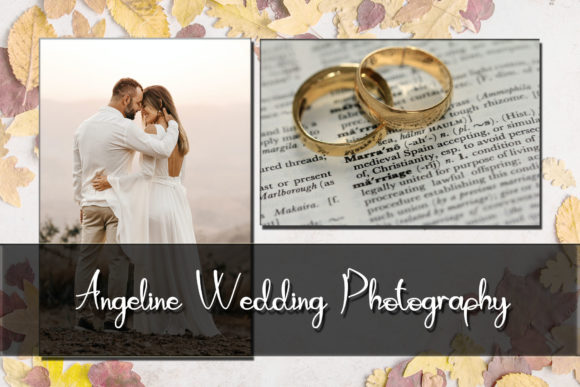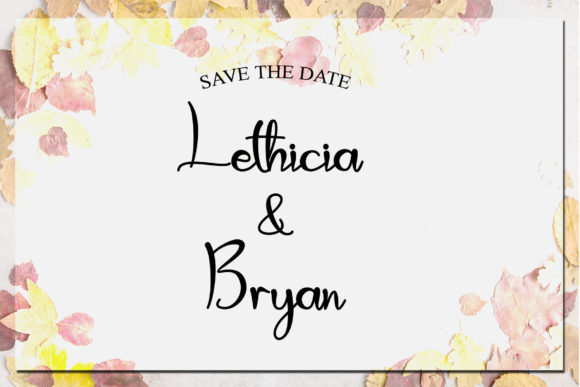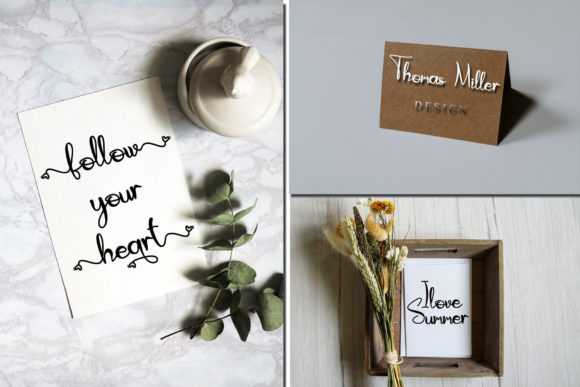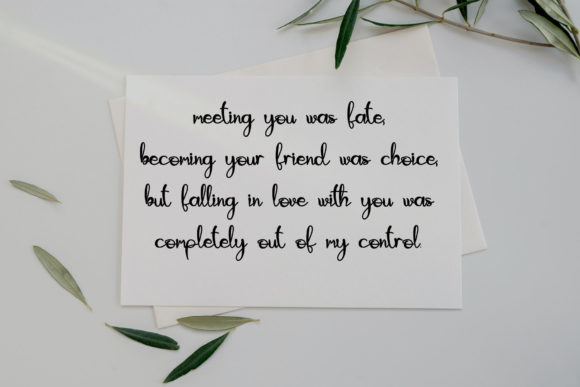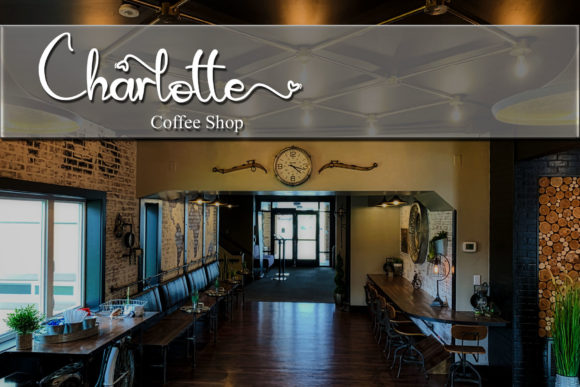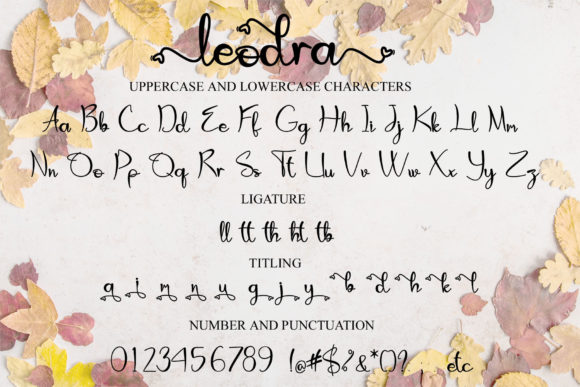
Introduction to Leodra Font
Imagine you’re sipping a cup of coffee on a quiet morning, surrounded by your design tools, and suddenly, a spark of creativity strikes. You envision a beautiful wedding invitation that captures the essence of love and romance. The perfect font to bring this vision to life is the Leodra Font, a stunning calligraphy typeface that exudes luxury and elegance.
For designers, finding the right font can be a game-changer. It’s what sets a project apart from the rest and makes it truly memorable. Leodra Font is more than just a design resource – it’s a tool that adds a personal touch to your creative project. With its beautiful, flowing characters, it’s perfect for a variety of applications, from logos and business cards to book titles and packaging.
Key Features of Leodra Font
- High-quality design resource ideal for creative projects, with a modern and elegant style.
- Unique characteristics include a clean and minimalist aesthetic, with a focus on legibility and readability.
Honest Review: Leodra Font
As a designer, I’m always on the lookout for high-quality design resources to elevate my creative projects. The Leodra Font is one such resource that caught my attention, and I’m excited to share my honest review.
- ✨ Elegant and modern design aesthetic that’s perfect for branding and packaging
- ⚠️ Limited font weights and styles, which may not be suitable for complex design projects
Overall, I’m impressed with the Leodra Font’s clean design and high-quality font files. While it may not be the most versatile font, it’s a great option for designers who need a stylish and modern font for their creative projects. With its free download option, it’s definitely worth checking out.
Leodra Font is ideal for use in creative projects that require a high-quality, transparent background. Some common use cases include:
Logo design
Infographics
Business cards
Brochures
Q: Is the Leodra Font suitable for print or digital use?
The Leodra Font is designed to be versatile and can be used in both print and digital projects. Its high-quality design ensures that it will look great on various mediums, from business cards to websites and social media graphics.